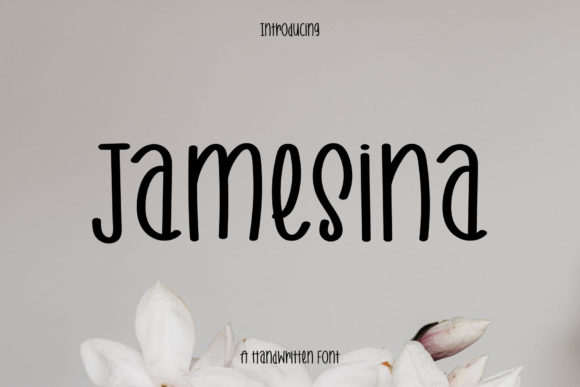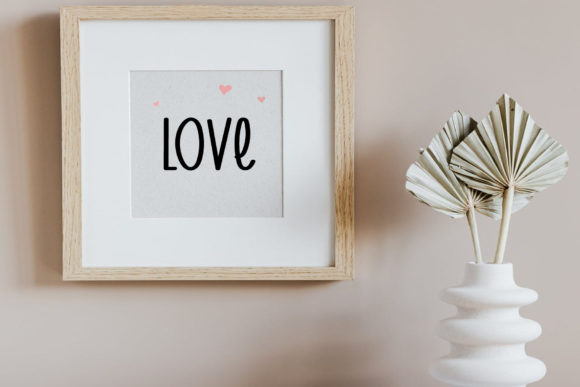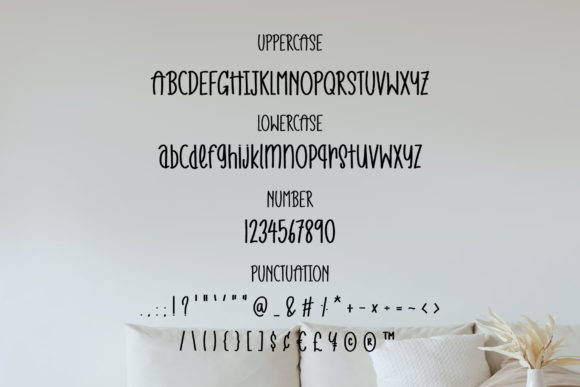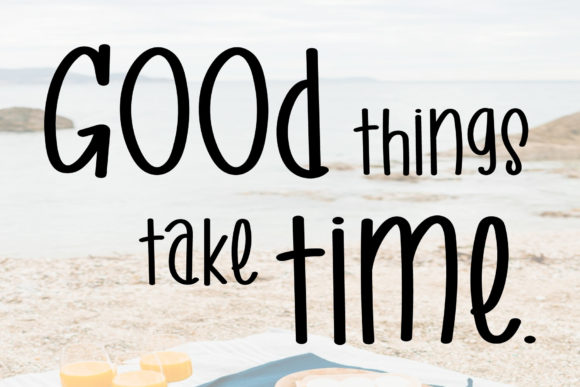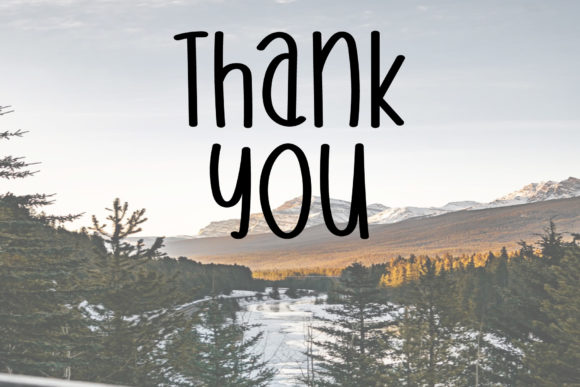
Jamesina Font
About Jamesina Font
Jamesina is a casual and friendly handwritten font. Whatever the topic, this font will be a wonderful asset to your font library, as it has the potential to enhance any creation.